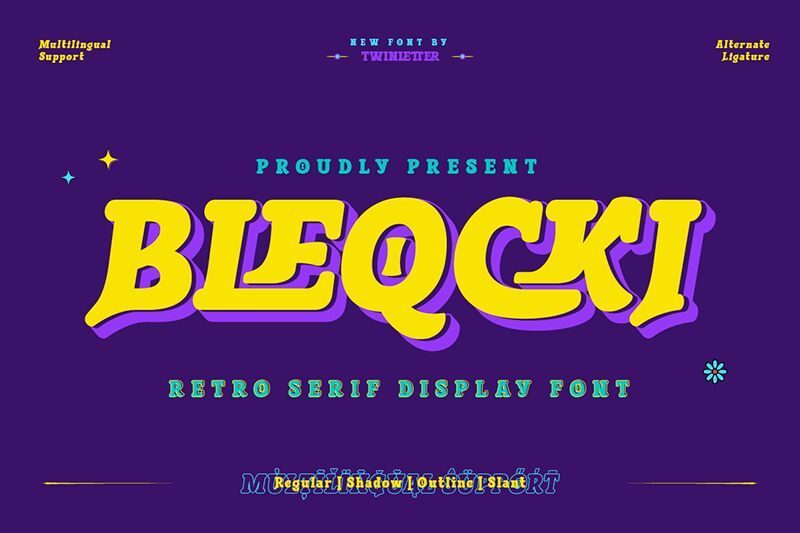
Bleqcki Font, designed by Twinletter, is a powerful display font that adds a touch of retro elegance to your projects. Its extra-bold weight exudes strength and confidence, making it suitable for a wide range of visual branding design projects.
Whether you're working on a logo, packaging, or website design, Bleqcki Font is the perfect choice for achieving a classic and vintage look. With its various styles like regular, shadow, outline, and slant, along with alternate ligatures and characters, this font offers endless creative possibilities to express your brand identity.
Let Bleqcki Font take your designs to new heights of sophistication and timeless charm.